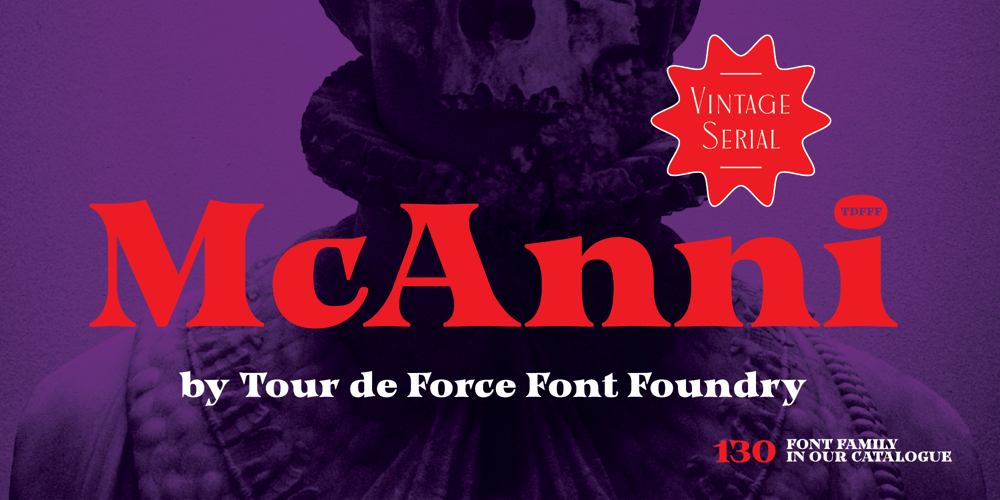
McAnni Font Family was designed by Dusan Jelesijevic and published by Tour De Force. McAnni contains 1 styles and family package options. McAnni is single weight display serif font and our 130th release. Heavy, wide and stable, McAnni is fully recognizable font that will bring new values to your design project. Charming design with vintage details ideal for titles, headlines, product names, posters, editorial use and more.Contains standard ligatures.